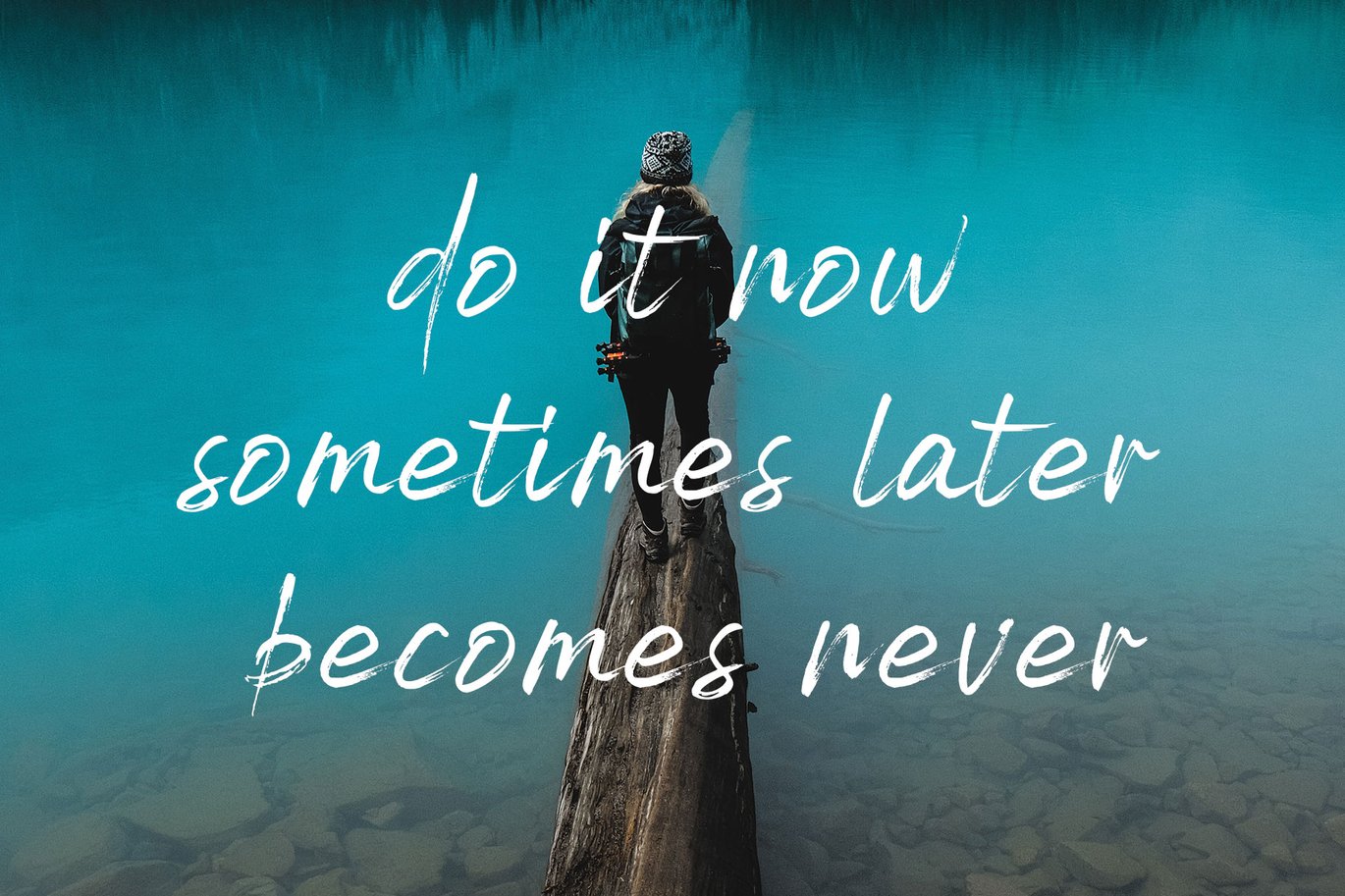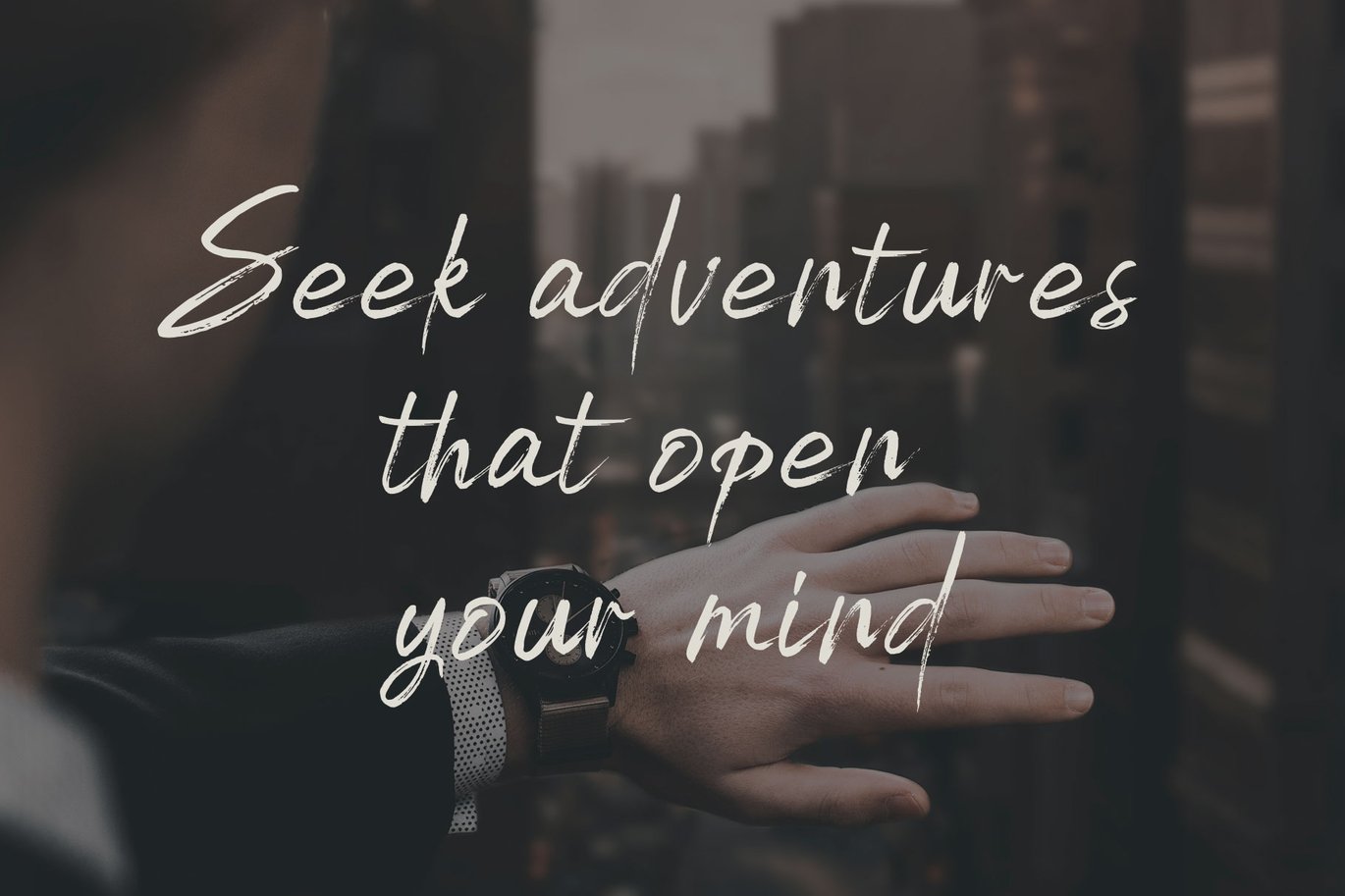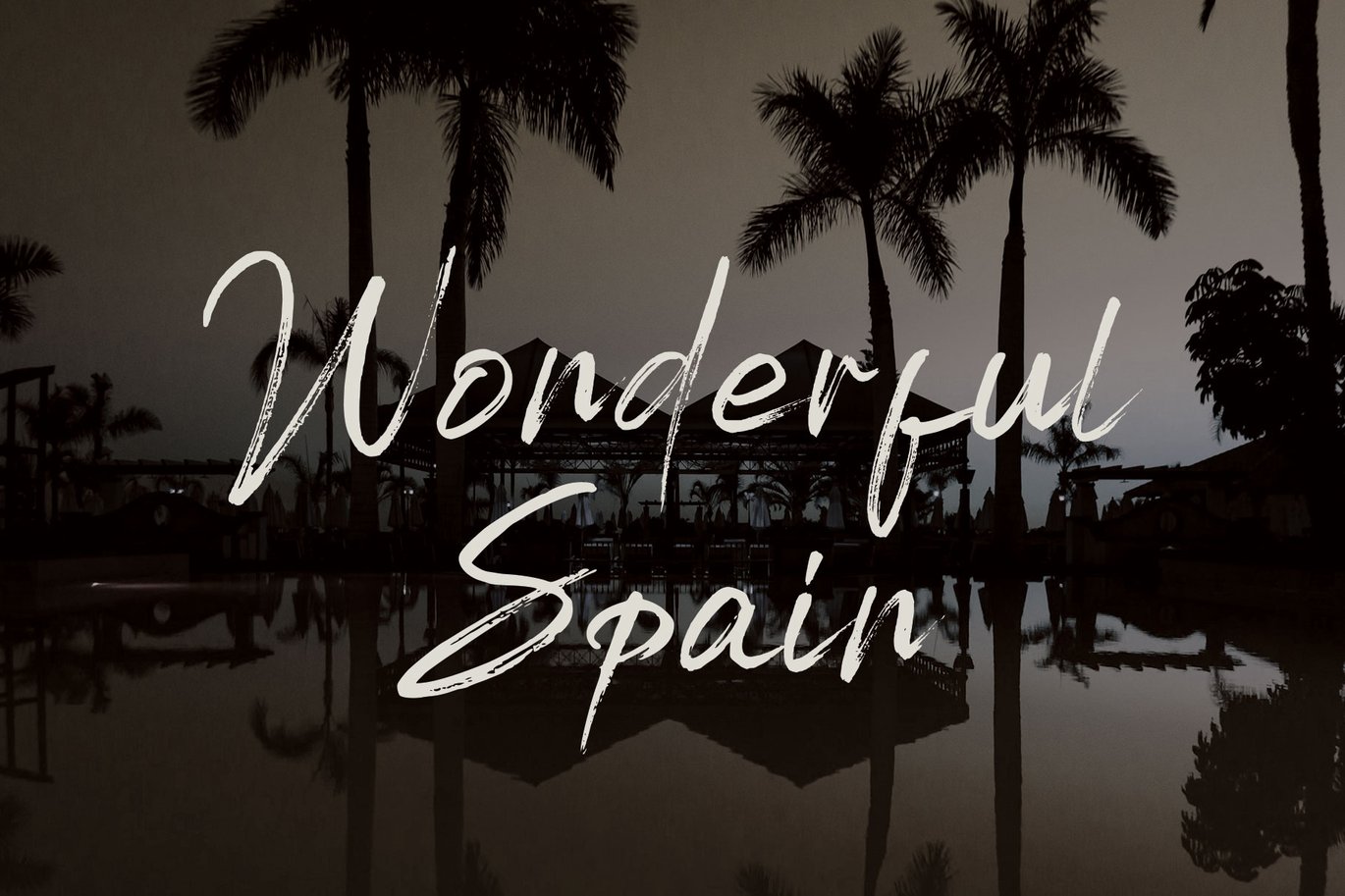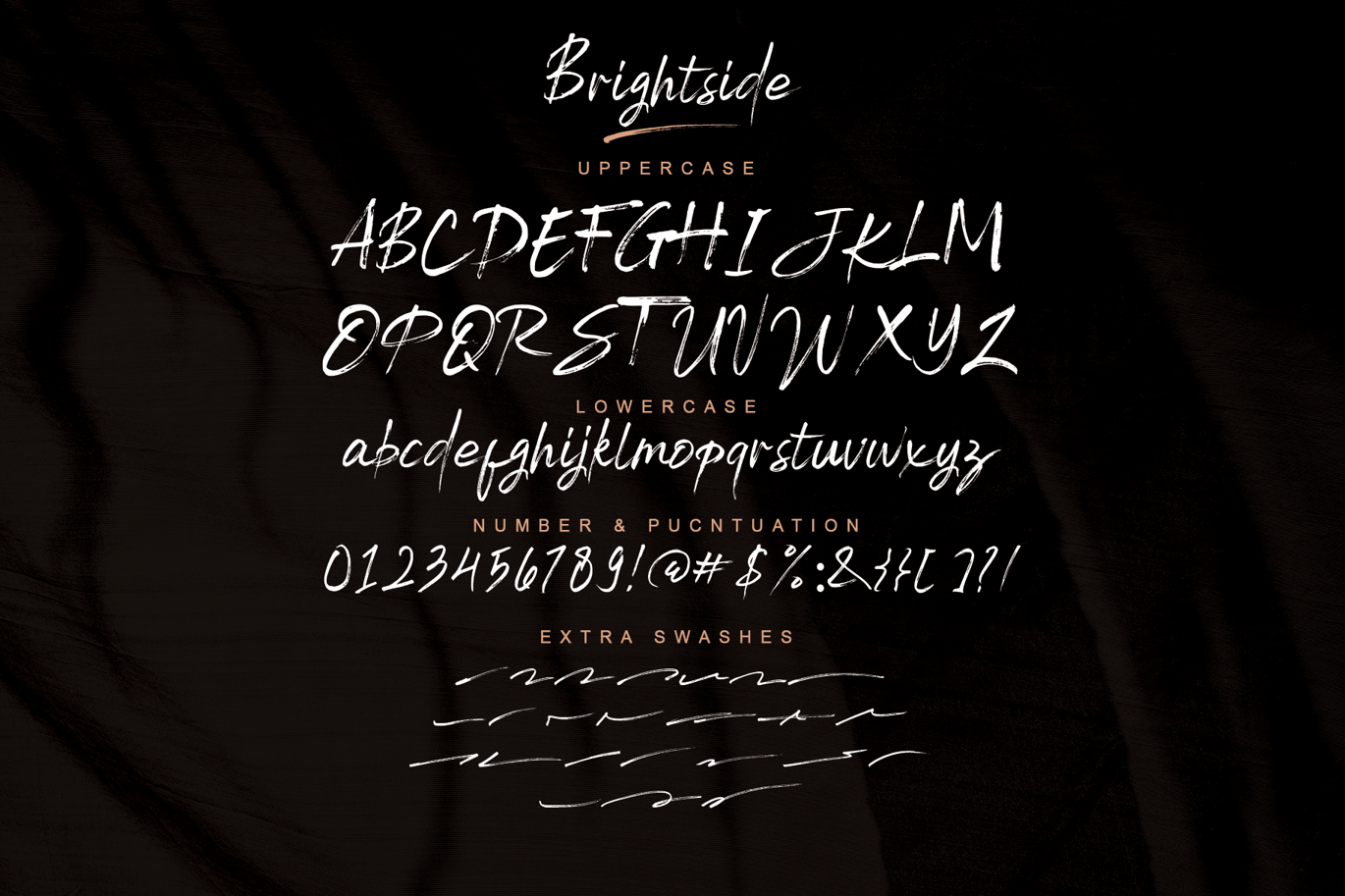
Brightside Brush Font
This Brightside Brush Font is perfect for positive lifestyle branding, optimistic wellness centers, sunny café signage, cheerful children's brands, uplifting motivation materials, bright morning radio shows, joyful greeting cards, positive psychology practices, sunshine-themed restaurants, and inspiring happiness communications.
What makes this Brightside Brush Font exciting is its radiant optimism that captures the uplifting energy and positive spirit of sunny dispositions and cheerful excellence. The font features flowing brush letterforms with bright characteristics that convey joyful positivity, sunshine warmth, and optimistic energy. Its uplifting character and brightness-inspired design make it ideal for brands seeking to communicate positive energy, cheerful optimism, and sunny excellence in wellness and lifestyle markets.
The Brightside Brush Font family includes regular, medium, and bold weights with optimistic alternates, sunny variants, and cheerful flourishes. This comprehensive positive font family provides designers with uplifting typographic tools to create bright compositions while maintaining the optimistic character essential for wellness brands and positive lifestyle communications.
Wellness companies and positive lifestyle brands consistently choose Brightside Brush Font Free Download for projects requiring authentic optimistic appeal and positive energy credibility. This font's distinctive bright character perfectly captures the sunshine excellence and cheerful positivity that resonate with audiences who appreciate positive thinking, wellness lifestyles, and brands that embody joyful optimism and bright energy.
The uplifting construction of Brightside Brush Font showcases energetically designed letterforms with sunny proportions that ensure exceptional positivity across all wellness applications. Its cheerful appearance and optimistic character create memorable impressions while maintaining the readability necessary for effective positive communication and wellness materials.
Professional designers appreciate how Brightside Brush Font brings immediate positive authenticity and cheerful energy to brand communications. The font's optimistic nature allows organizations to communicate wellness excellence and positive lifestyle while maintaining the professional quality necessary for effective positioning in wellness and positive lifestyle markets.
The inspiring appeal of Brightside Brush Font makes it particularly effective for brands emphasizing positive thinking, wellness optimism, and cheerful lifestyle excellence. Its bright character resonates strongly with audiences who appreciate positive energy, wellness culture, and brands that represent the uplifting power and sunny optimism of positive lifestyle achievement.
Whether developing branding for wellness centers or creating materials for positive lifestyle brands, Brightside Brush Font Free Download provides the uplifting typographic foundation that positive brands need to communicate their cheerful excellence, sunny optimism, and the bright energy that defines positive wellness and inspiring lifestyle achievement.